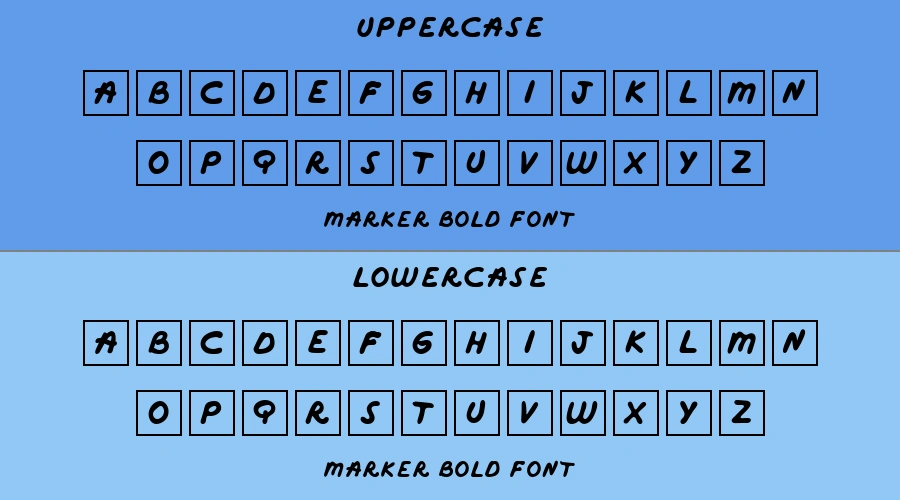
About Marker Bold Font
Designed with precision, Marker Bold Font merges sharp edges with production readiness in every character. This versatility makes it particularly effective for financial reports, where reliability and technical excellence directly impact communication quality. Each letterform demonstrates meticulous craftsmanship.
Technical excellence shines through elements like open counters and technical characters, enhancing typographic versatility. In pull quotes settings, Marker Bold Font proves its worth through superior headline impact. The thoughtful execution of ear placement and industrial acceptance ensures professional results.